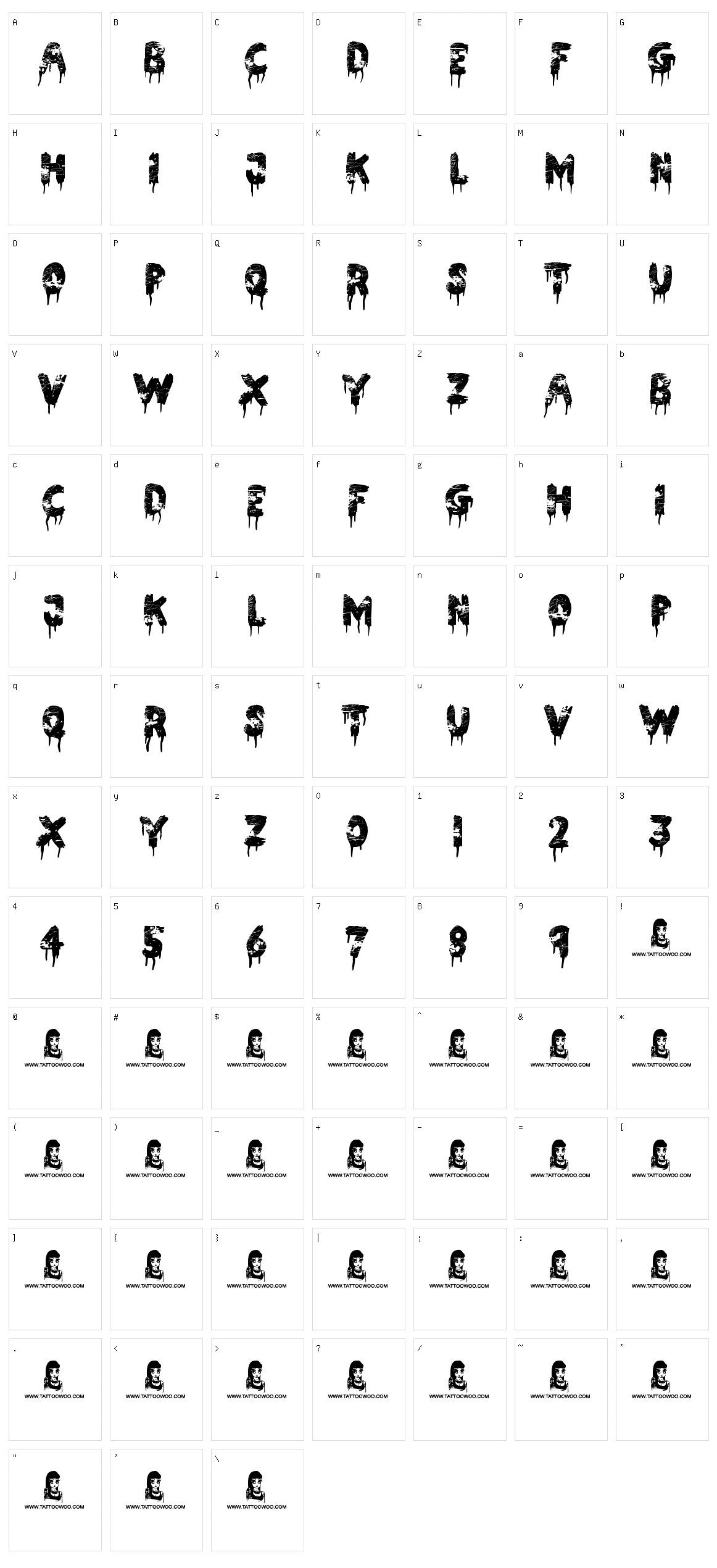
The free font Nothing To Lose is carefully designed by JSH creates, showcasing a thoughtful balance of creativity and usability and falls under the Horror font style. When you download the ZIP file, it contains only 84.04 KB of font files, making it lightweight and quick to download. Please review the license details below to understand permitted usage and distribution rights. If license information is not available, we recommend using this font for personal projects only or contacting the author directly for commercial usage permissions.